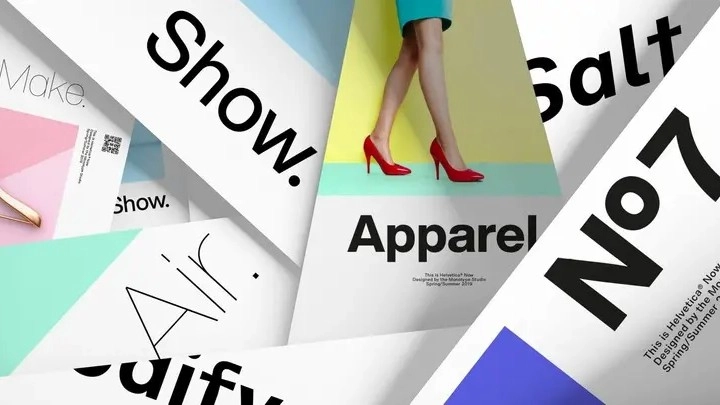
24 professional fonts for designers
Bring your designs to live with these professional fonts.
Typography isn't just important in design—it's fundamental. The right font establishes mood, improves readability, and elevates your work from ordinary to exceptional. So for designers serious about their craft, the best professional fonts often separate adequate designs from truly outstanding ones.
This guide showcases 20 essential typefaces every designer should consider for their collection. We've curated a diverse selection spanning classic standbys and contemporary options, each offering exceptional versatility and refinement for both print and digital applications.
01. Gilroy by Radomir Tinkov
Gilroy is a modern sans serif with a geometric touch, designed by Radomir Tinkov. Designed as a younger brother to Tinkov's Qanelas font family, it comes in 20 styles, with 10 uprights and matching italics, and weights ranging from Thin to Heavy. Opentype features include extended language support and Cyrillics, fractions and ligatures, and Gilroy's designed for versatility. A good choice for everything from editorial and web design through to graphic design and signage. If you want to get a feel for it, two styles are available completely free.
02. Polymath by Vladimir Fedotov and Plamen Petrov
Designed by Vladimir Fedotov and Plamen Petrov, and published by VP Creative Shop, Polymath injects personality into the grotesque category, making it ideal for versatile branding applications. This geometric sans font offers exceptional versatility through three distinct optical sizes: a text version inspired by 1920s designs with longer ascenders, a display version echoing 1970s proportions with enormous x-height, and a standard size influenced by post-1980s geometric sans serifs. Polymath comes with comprehensive language support and extensive alternates.
03. Helvetica Now by Monotype
Essential though it is, Helvetica wasn't designed to cope with the heavy lifting that the digital age expects of it. That's why Monotype spent four years painstakingly redrawing every single character to create Helvetica Now, an updated version that's ready to work in across digital platforms and solve modern branding challenges that simply didn't exist when Helvetica was originally released. Helvetica Now comes in three optical sizes – Micro, Text and Display – in weights ranging from Thin to Extra Black, and every size, weight and style is designed to provide maximum legibility.
04. Aktiv Grotesk by Dalton Maag
Designed by Bruno Maag and developed across the years 2010–2023 by multiple designers, Aktiv Grotesk is a grotesque sans typeface with weight, width, and italic variable font axes, support for 10 global writing systems, and an extensive icon set. Beautifully clean and minimalist, Aktiv Grotesk was intended to be warmer than Univers and without the quirks of Helvetica. It has slightly squarer edges than the former and a fractionally taller x-height than the latter. Overall, it offers an authoritative but neutral position.
05. GT Flaire
Characterised by pronounced curves inspired by calligraphic penmanship, GT Flaire is a versatile typeface that breaks corporate rigidity by combining seriousness with a sense of play. Designer Reto Moser drew inspiration from Frutiger's Gespannte Grotesk, creating a softer alternative that maintains professionalism while adding character. It's available in 28 styles including both serif and sans serif versions, and offers extensive customization options and language extensions.
06. Case 2.0 by Fontwerk
Case 2.0 is neo-grotesque font designed to meet the demands of complex branding projects while maintaining a familiar and reassuring neutrality. With a clear, neutral design, it offers a solid foundation for individual adaptations and custom designs. It was created in 2023 by renowned type designers Erik Spiekermann, Anja Meiners, and Ralph du Carrois, with the intention to combine the authority of classic fonts with a contemporary look. The font offers three optical sizes for versatility, a unicase feature, improved legibility, and real italics.
07. Financier by Klim Type Foundry
Drawn for the redesign of the Financial Times newspaper in 2014 under the direction of Kevin Wilson and Mark Leeds, Financier is an elegant and authoritative serif, with an aesthetic inspired by Eric Gill’s classic letterforms. Its versatility handles news and features well, both in print and online; even on small and narrow mobile screens. Financier is comprised of two complementary families: Financier Display and Financier Text. The latter draws pragmatic detailing from Solus and Joanna, while the former echoes Perpetua’s stately charm.
08. Nebulica
Nebulica is a display font that seamlessly combines geometric and monospace design elements for a distinctly modern aesthetic. This experimental typeface features unique details like inktraps and slanted stems that maintain visual consistency and legibility across diverse applications. Its variable font format and extensive OpenType features give designers remarkable flexibility, and there's support for over 88 languages, along with a comprehensive character set.
24. Maelstrom Sans by Klim Type Foundry
Maelstrom is a reversed-stress typeface specifically designed to be "perverse". Created by Kris Sowersby in 2019, its razor-thin spacing, heavy horizontals and spindly diagonals make for a typeface that feels fragile and off-kilter. Available in a single bold weight, this font is not for the faint-hearted.